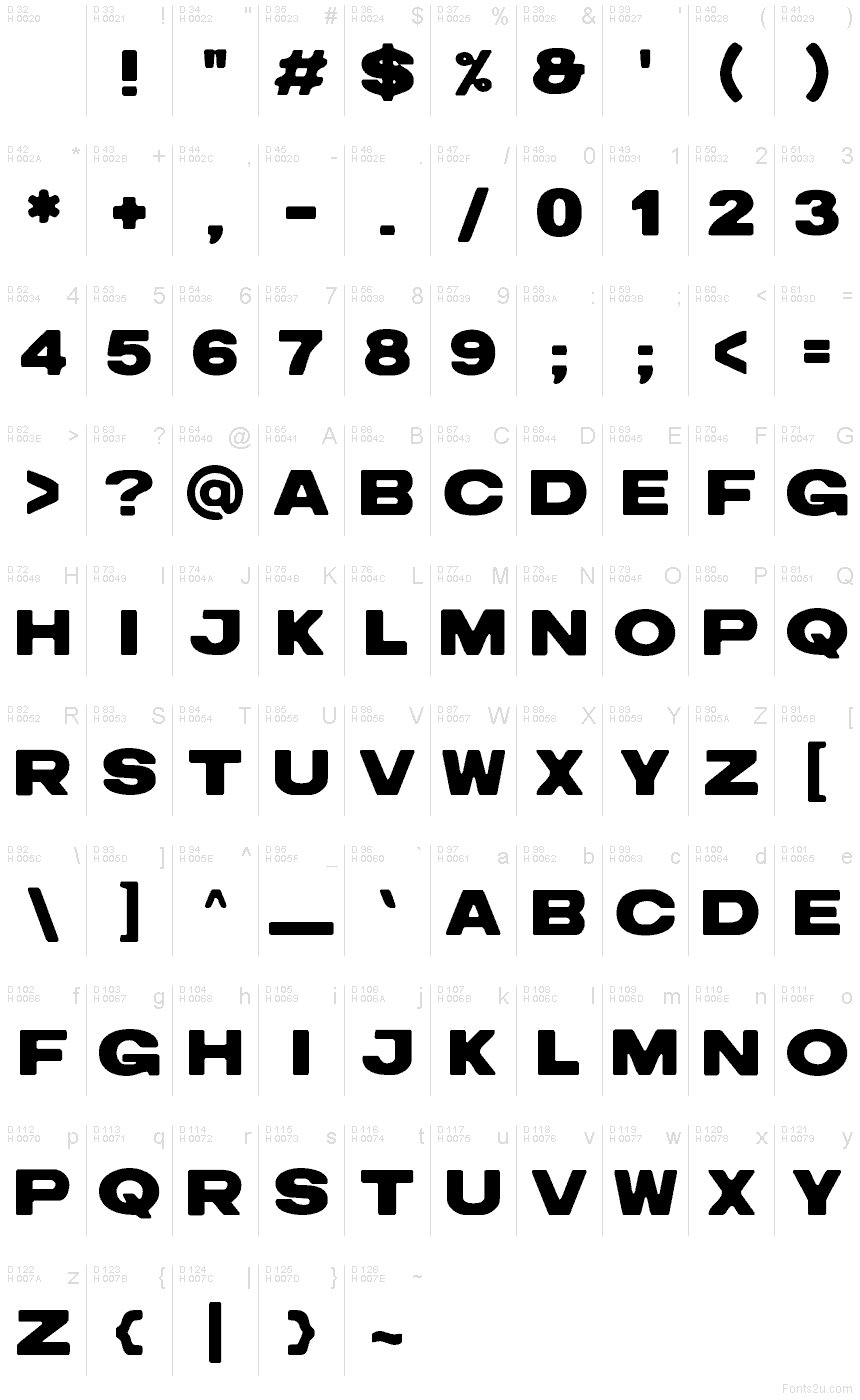
Goride Sans Inked
Goride Sans Inked font by The Branded Quotes effortlessly combines boldness and clarity in a modern sans serif design. With an expanded width, this unique typeface captures attention with its sleek, geometric shapes and clean lines while maintaining readability across various platforms. Its contemporary appeal is suitable for both digital media and print design projects.